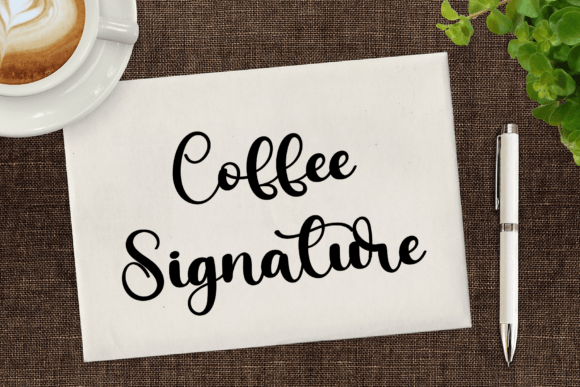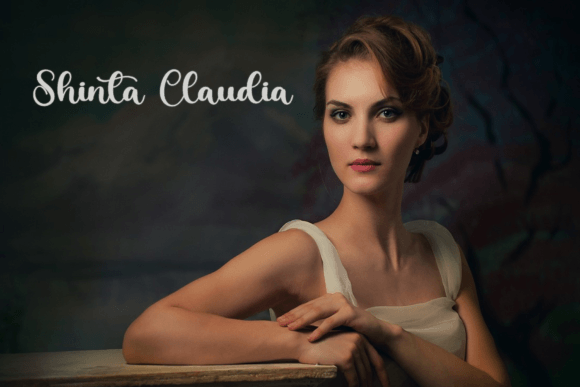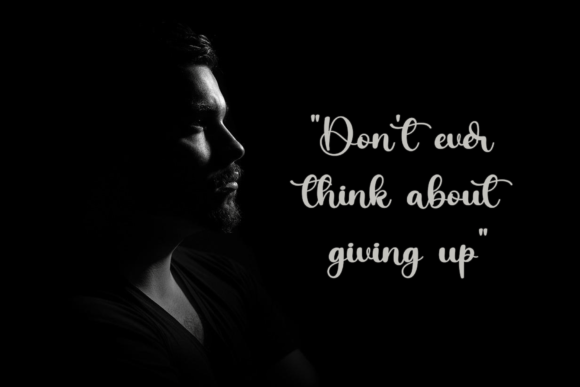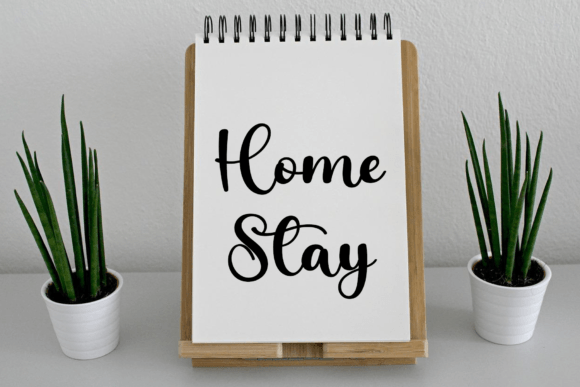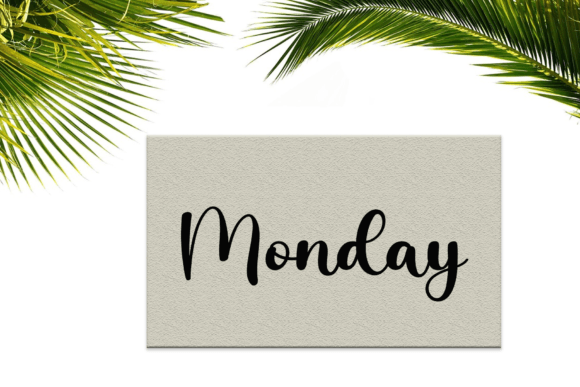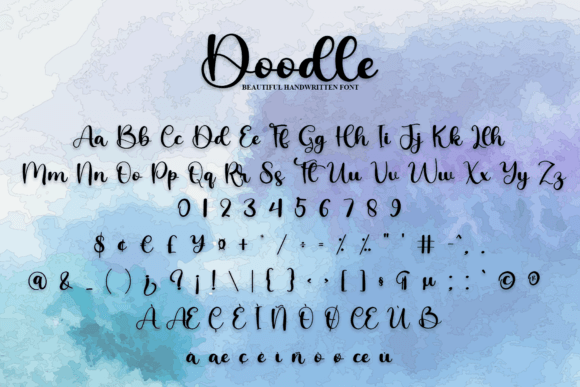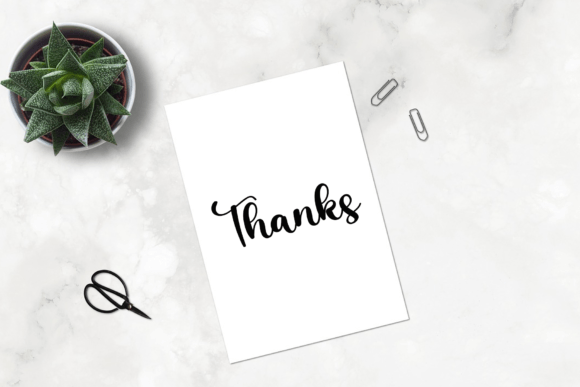
Doodle Font
About Doodle Font
Doodle, an elegant and feminine typeface, emerges as an excellent choice for a variety of design applications, especially well-suited for headlines. With its sophisticated design, it proves to be an ideal option for wedding stationery, invitations, florist branding, packaging, and social media posts.
The charm of Doodle lies in its elegant and feminine characteristics. The typeface is meticulously crafted to radiate sophistication and a touch of romance. This makes it a standout choice for projects that demand a certain level of grace and style.
Consider incorporating Doodle into wedding stationery, where the font’s elegance can enhance the romantic atmosphere of invitations, save-the-date cards, and other wedding-related materials. Its versatility extends to florists’ branding, packaging, and social media posts, where the typeface’s feminine appeal complements floral designs and delicate aesthetics beautifully.
The adaptability of Doodle allows it to shine across various digital and print applications. Whether gracing the pages of a website or adding an elegant touch to physical materials, Doodle brings a level of sophistication that elevates the overall visual impact.
In essence, Doodle is not just a typeface; it’s a design asset that adds an elegant and feminine touch to your projects. Embrace its refined characteristics, and let Doodle be the choice that infuses a sense of romance and sophistication into your headlines, making them stand out with grace and style.